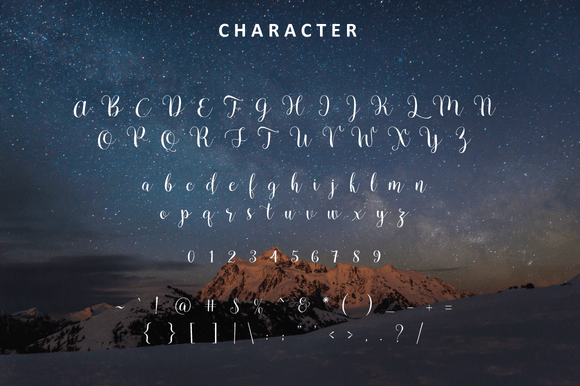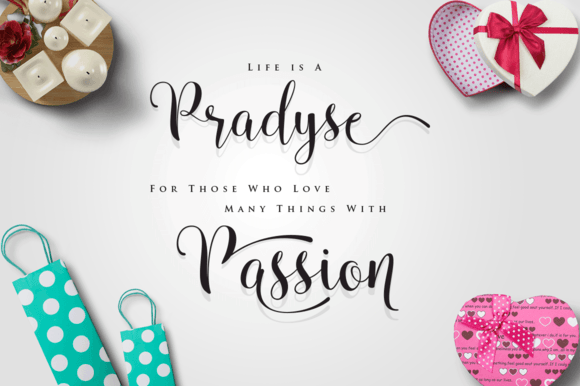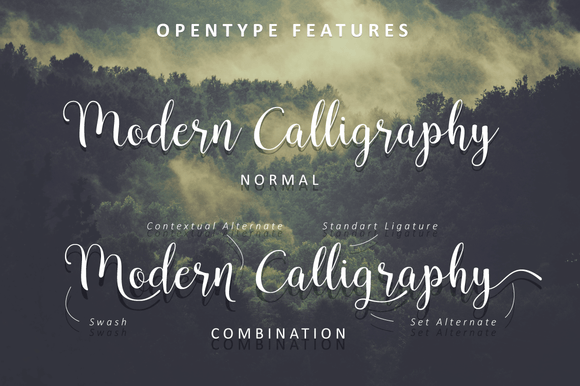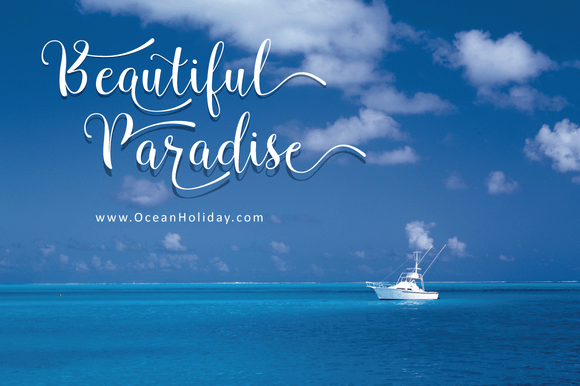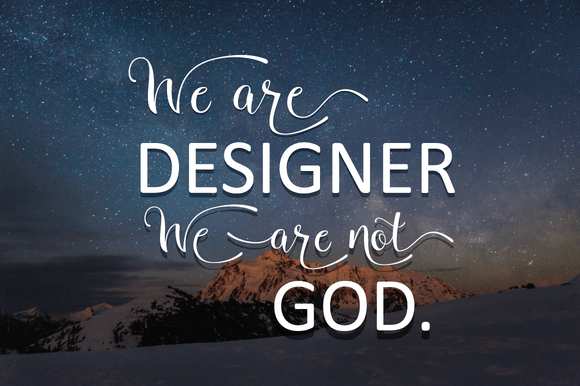
Pradyse Font
About Pradyse Font
Pradyse is a stunning and striking script font with beautiful contrast in structure and ligatures. This font looks at home in romantic and girlish designs, and will give all your projects an impressive feel.